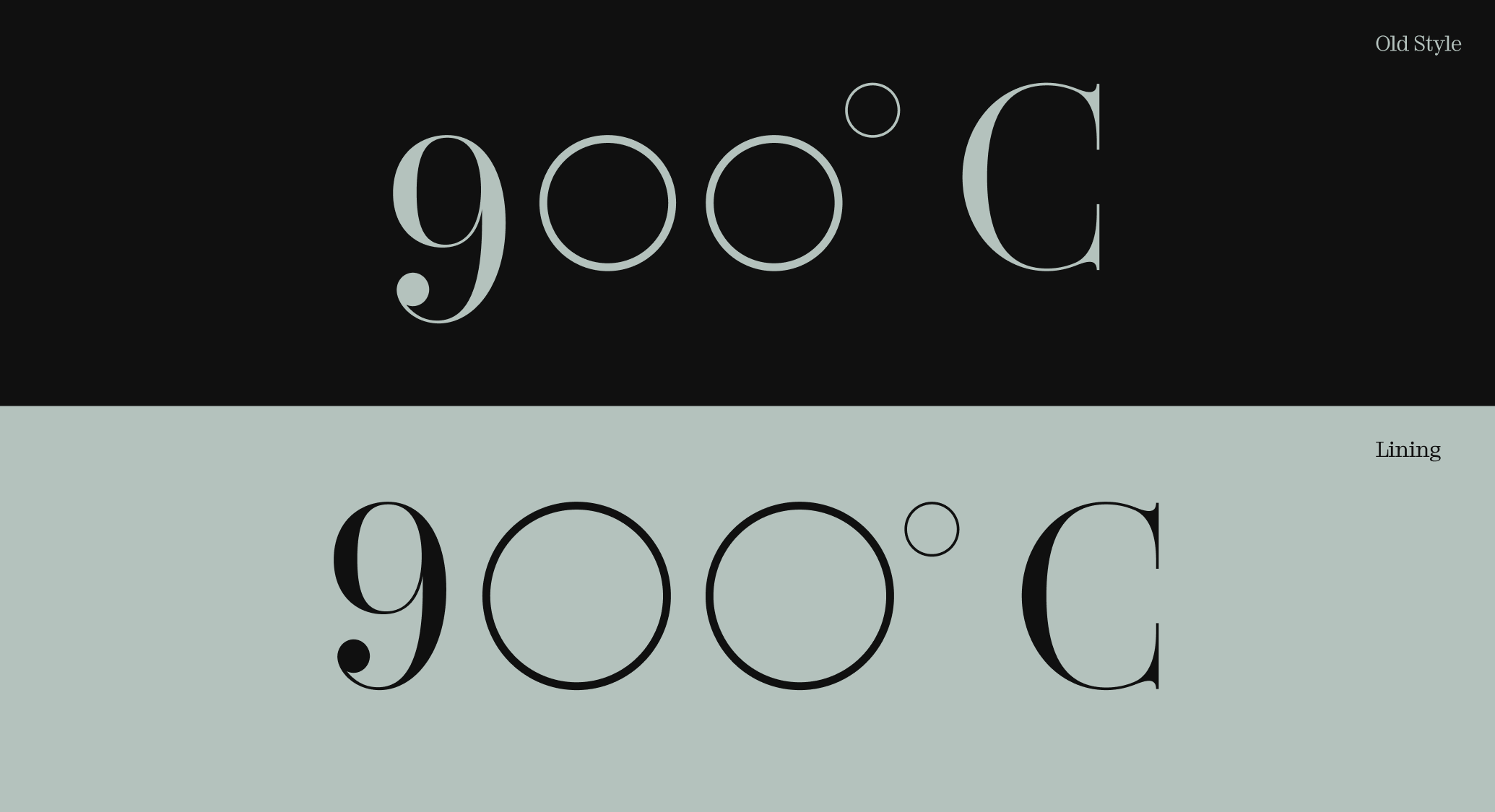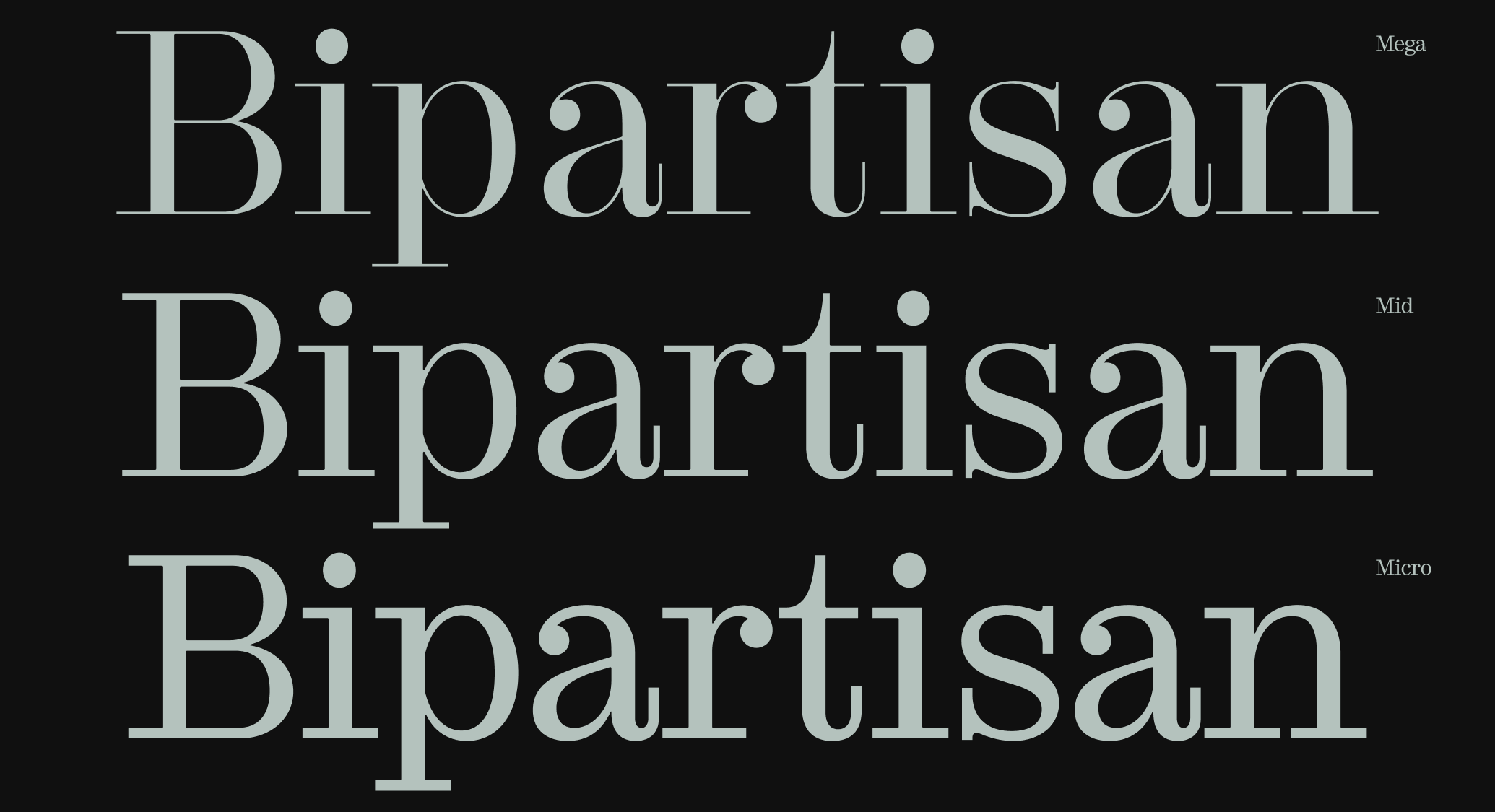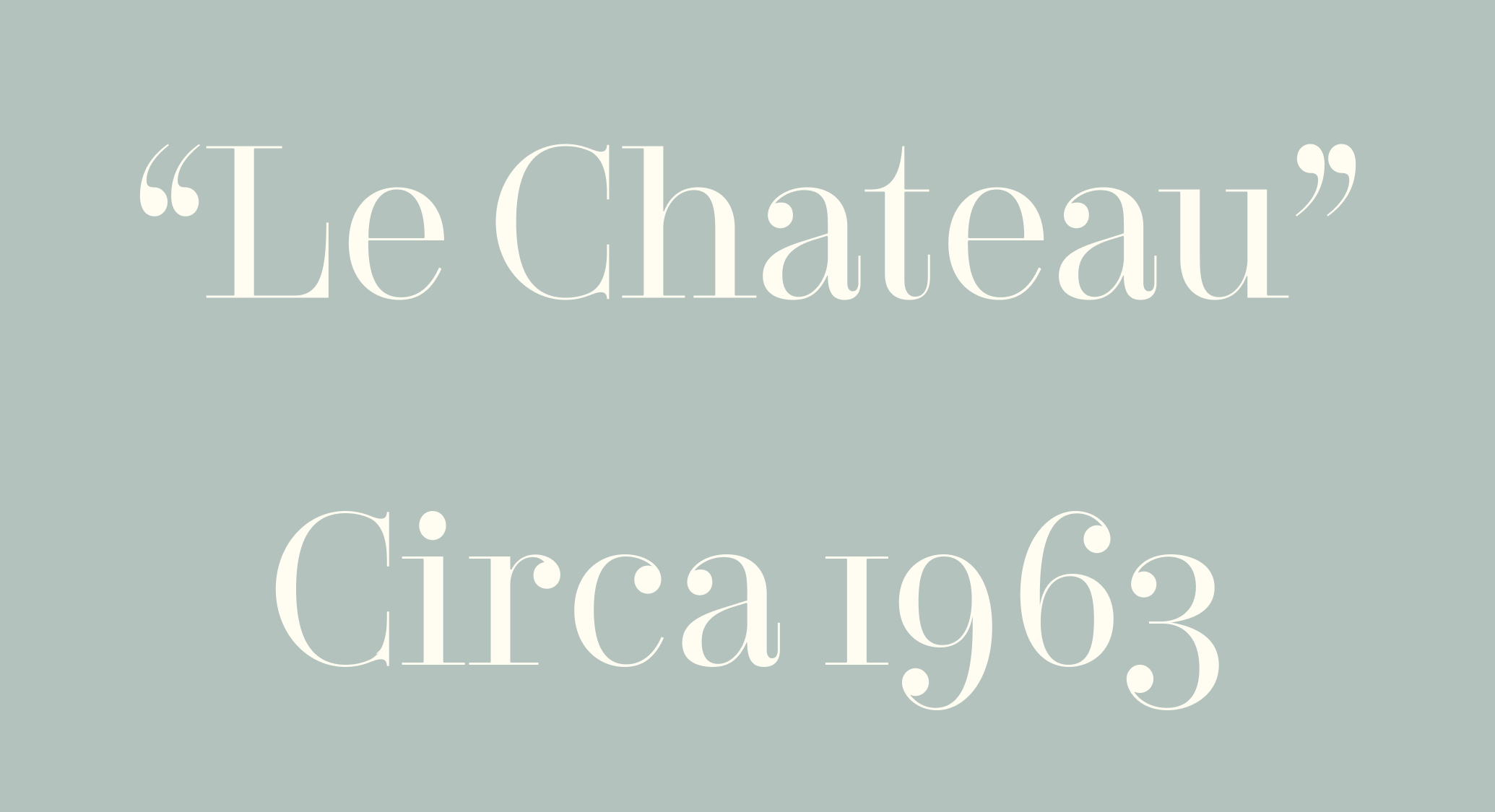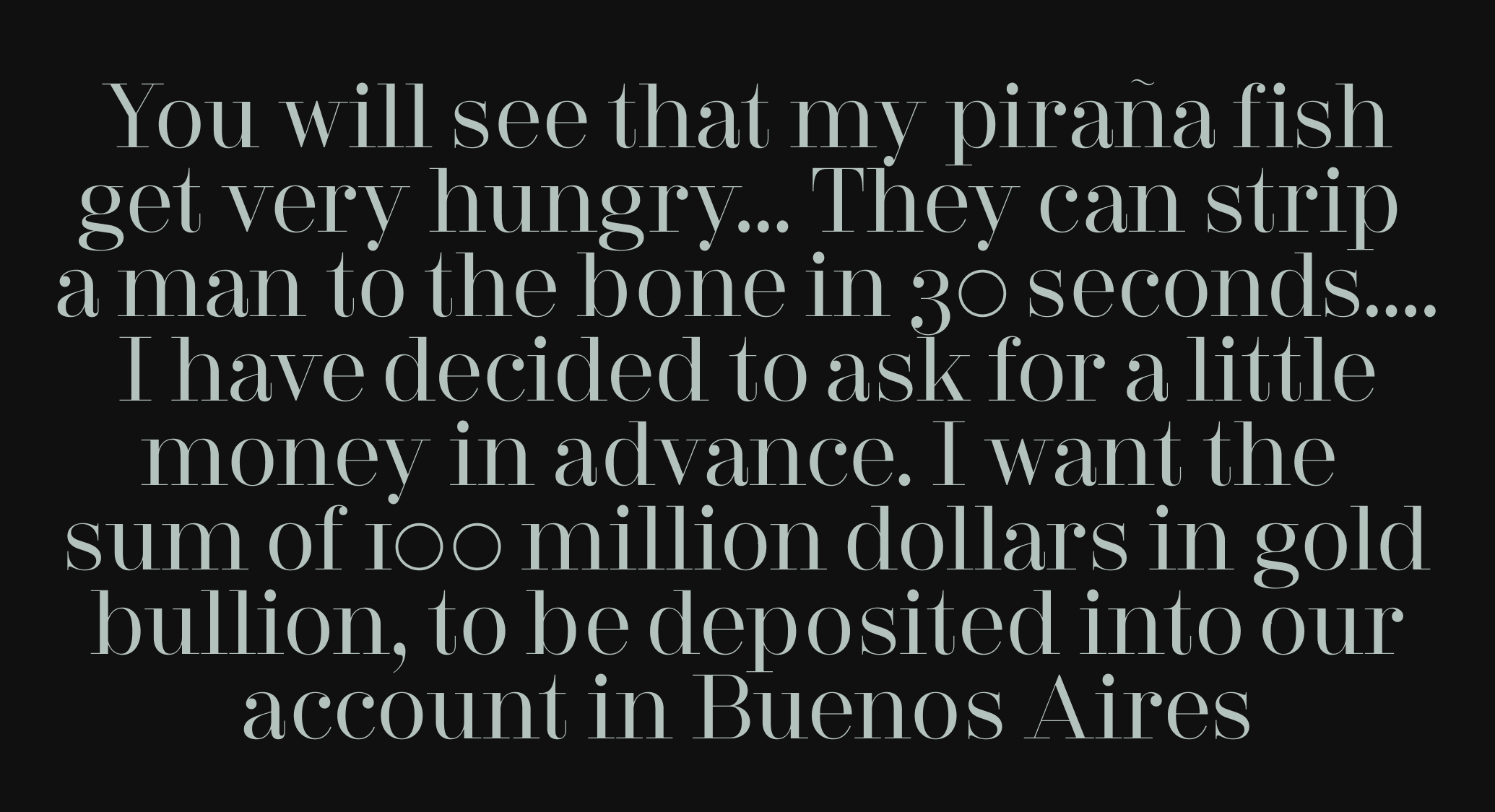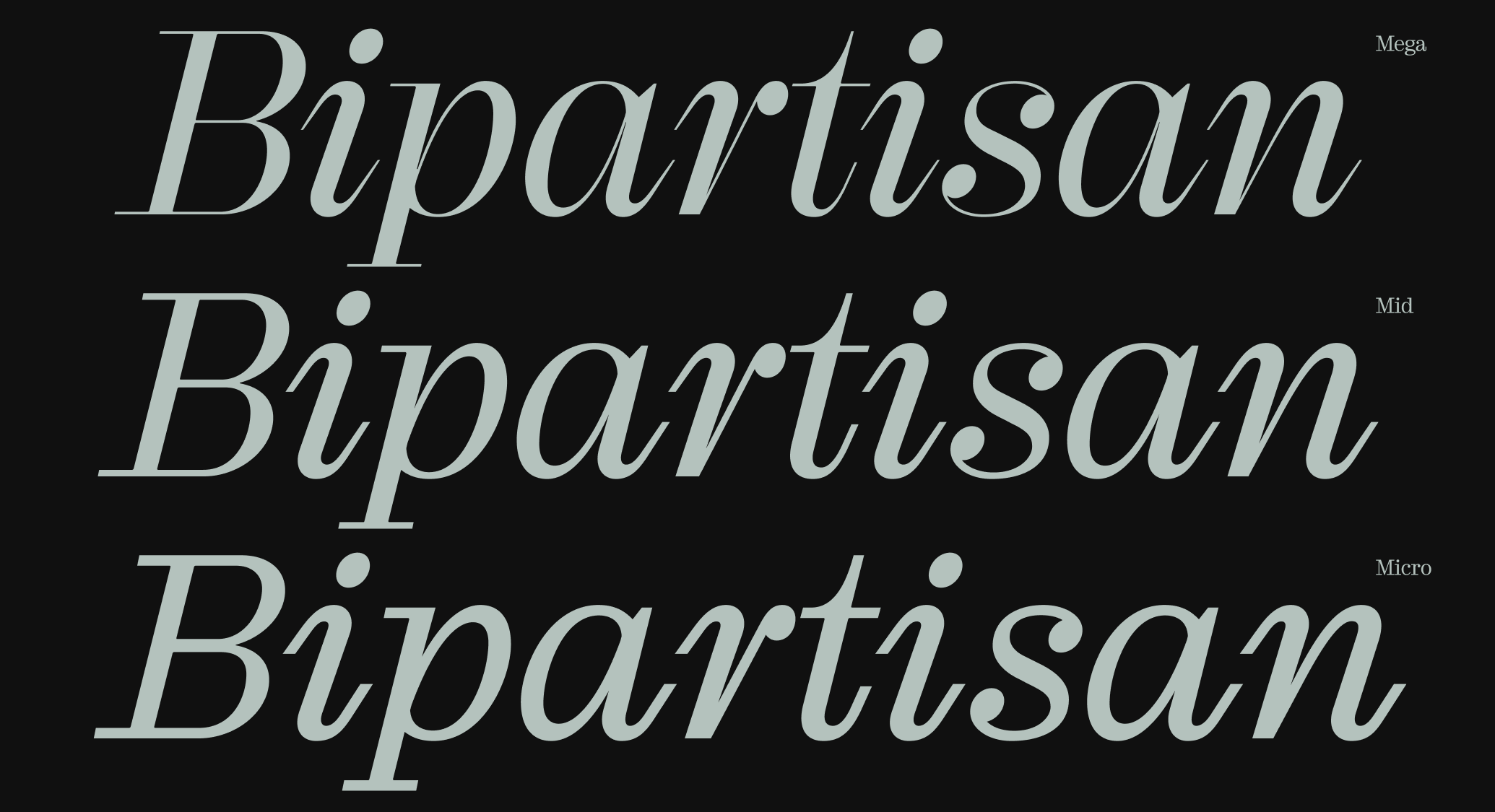
AF Blofeld
AF Blofeld is a hypermodern serif with devilish details. This ultra-fine family comes in three optical sizes — Micro, Mid, and Mega — each intended for different scales of type-setting. Sharper than a cat’s claws, its soignée facade belies a more sinister soul.